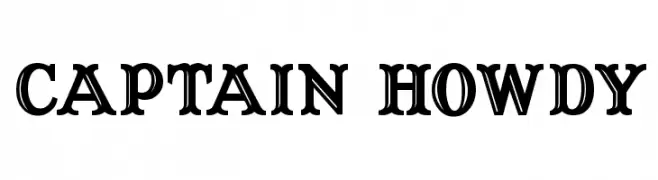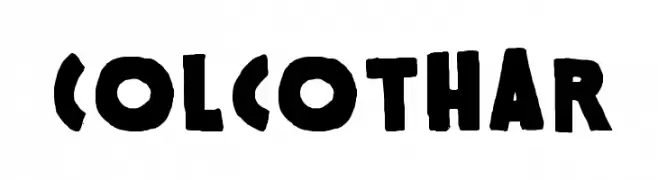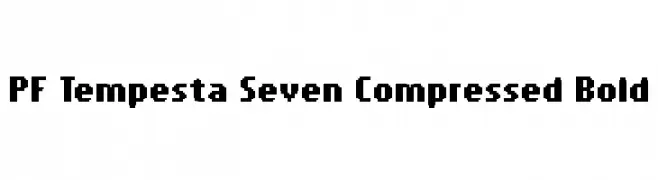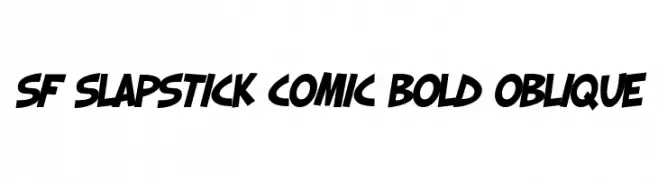
A tall, narrow font with elongated vertical lines and a sleek, modern style.
A bold, playful, and oblique font with dynamic curves and angles.
A bold, extended, and geometric font with a modern style.
A bold, compressed font with a geometric and robust design.
A bold, rugged font with jagged, chipped edges for a distressed, industrial look.
A bold, playful font with rounded characters and contrasting outlines.
A playful, heart-themed decorative font with a hand-drawn style.